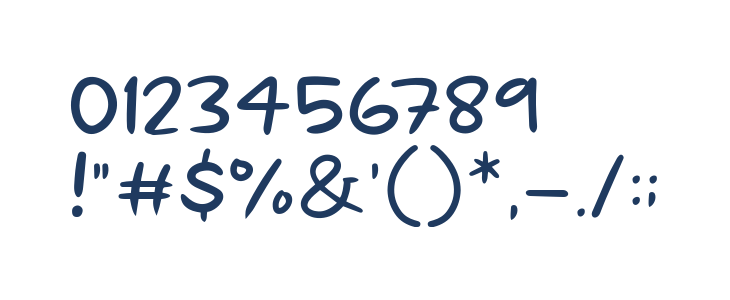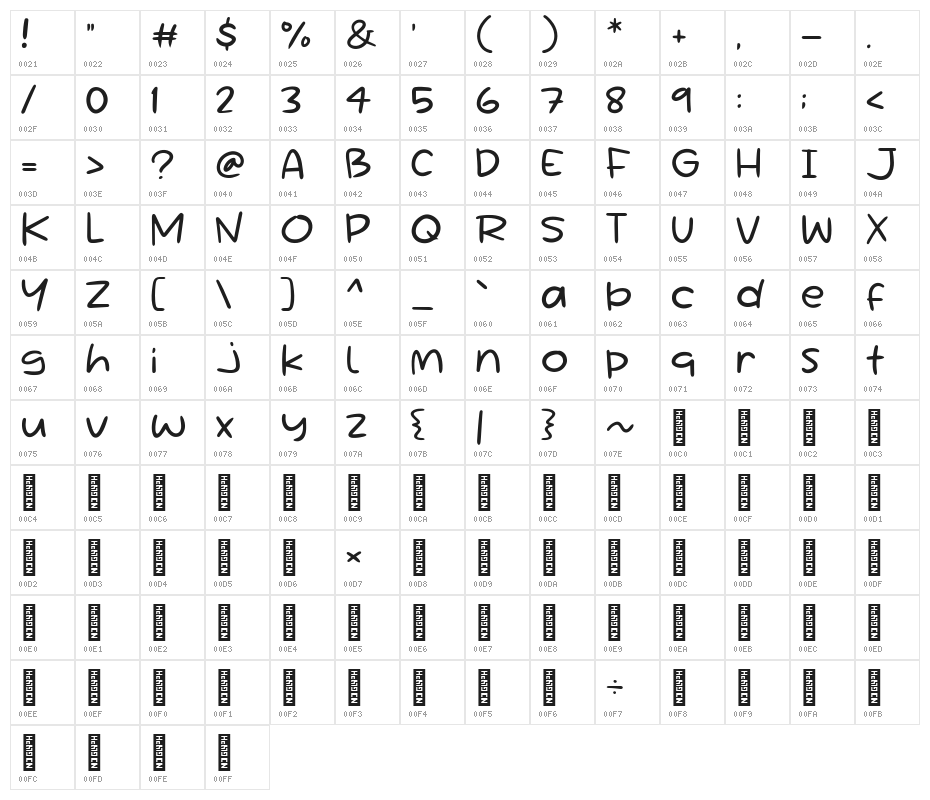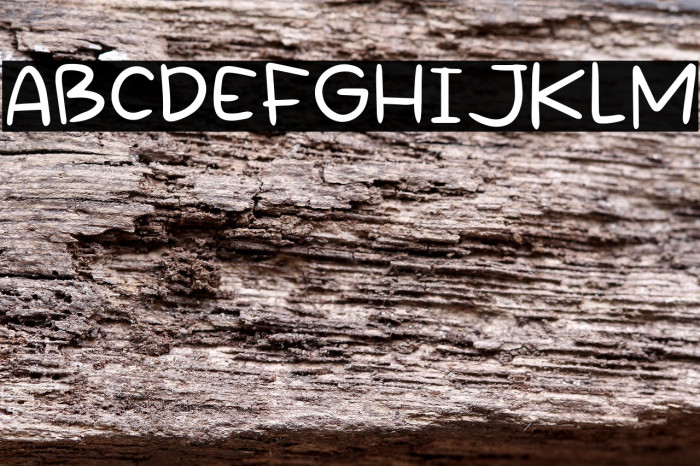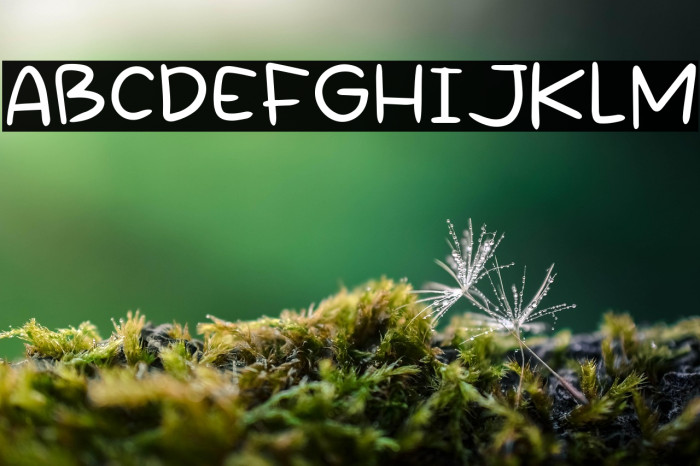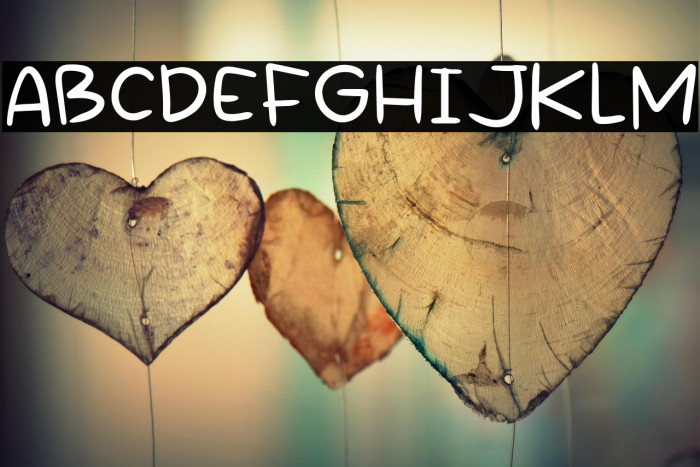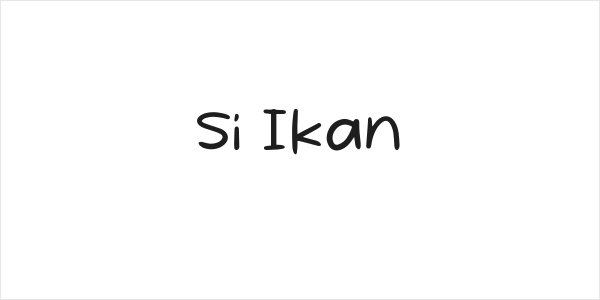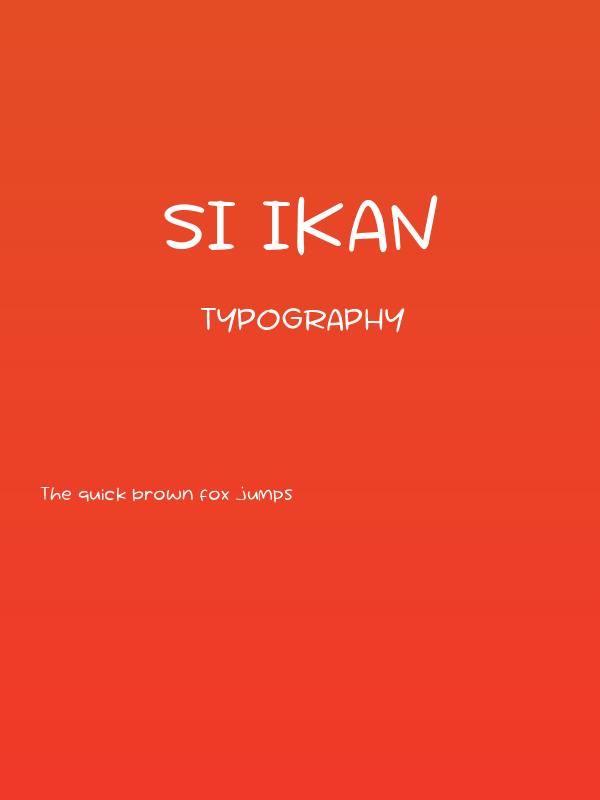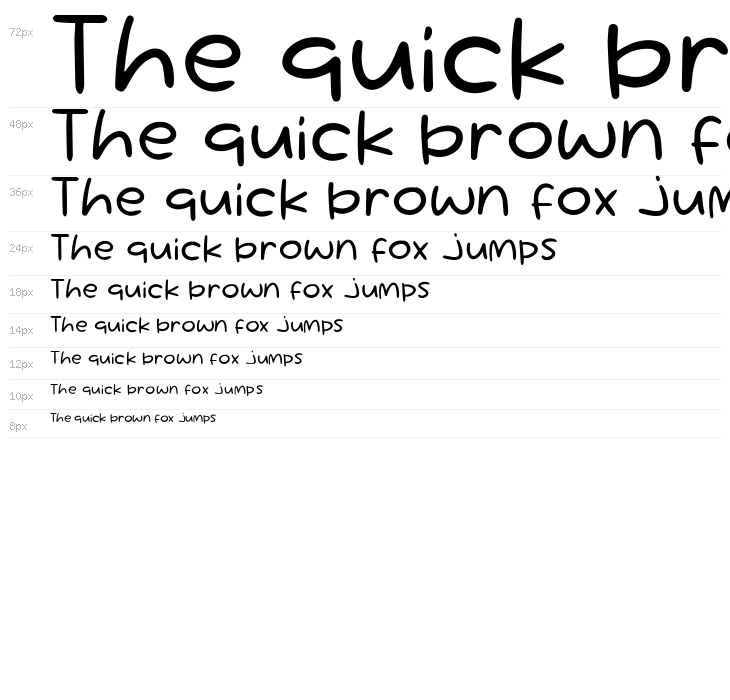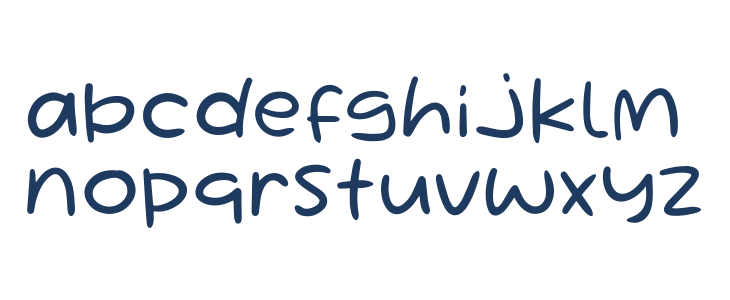
Si Ikan Font
Si Ikan Description
This playful and casual font features a handwritten style with smooth, rounded edges and a friendly appearance. The characters are slightly irregular, adding a personal touch that mimics natural handwriting. The uppercase and lowercase letters maintain a consistent flow, with the lowercase letters slightly smaller and more compact. The numbers and special characters follow the same style, ensuring uniformity across all glyphs. This font's informal and approachable design makes it suitable for projects that require a personal or creative touch.
| Proposed Projects | Ideal for greeting cards, children's books, casual invitations, and playful branding. |